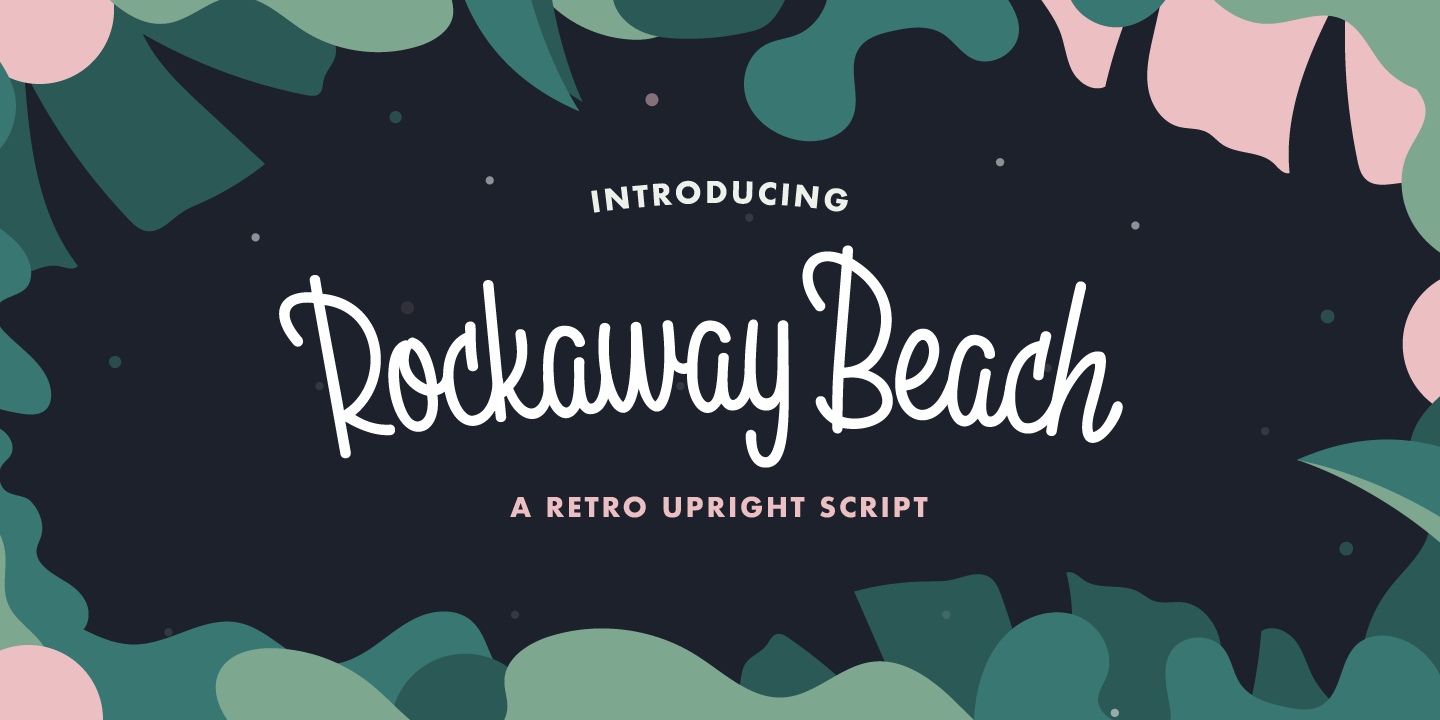
Rockaway Beach Font
Rockaway Beach Font is perfect for surf shop branding, beach resort marketing, coastal restaurant menus, summer festival posters, vacation rental websites, beachwear packaging, tropical cocktail labels, ocean-themed graphics, seaside event invitations, surf competition materials, beach club signage, and coastal lifestyle projects that require relaxed, sun-soaked typography with oceanic charm.
What makes Rockaway Beach Font so exciting is its laid-back coastal vibe and sun-drenched personality that instantly transports audiences to sandy shores and endless summer days. This typeface features flowing, relaxed letterforms with organic curves and weathered characteristics that evoke the carefree spirit of beach culture and coastal living. The font's breezy character and vacation-inspired aesthetic make it perfect for brands and projects that want to communicate relaxation, freedom, and the irresistible allure of seaside adventures.
Whether you're designing beach resort materials, surf brand identity, or summer campaign graphics, Rockaway Beach Font delivers exceptional warmth and appeal that connects with audiences who dream of ocean waves and sandy beaches. Its relaxed, organic appearance works beautifully with coastal color palettes and beach imagery, creating harmonious designs that feel both authentic and professionally polished.
The thoughtfully designed letterforms of Rockaway Beach Font showcase the natural flow and easy-going rhythm that defines coastal lifestyle and surf culture. Each character has been crafted to maintain excellent readability while delivering the laid-back personality that makes beach-themed projects feel genuine and emotionally engaging for audiences seeking vacation vibes and coastal inspiration.